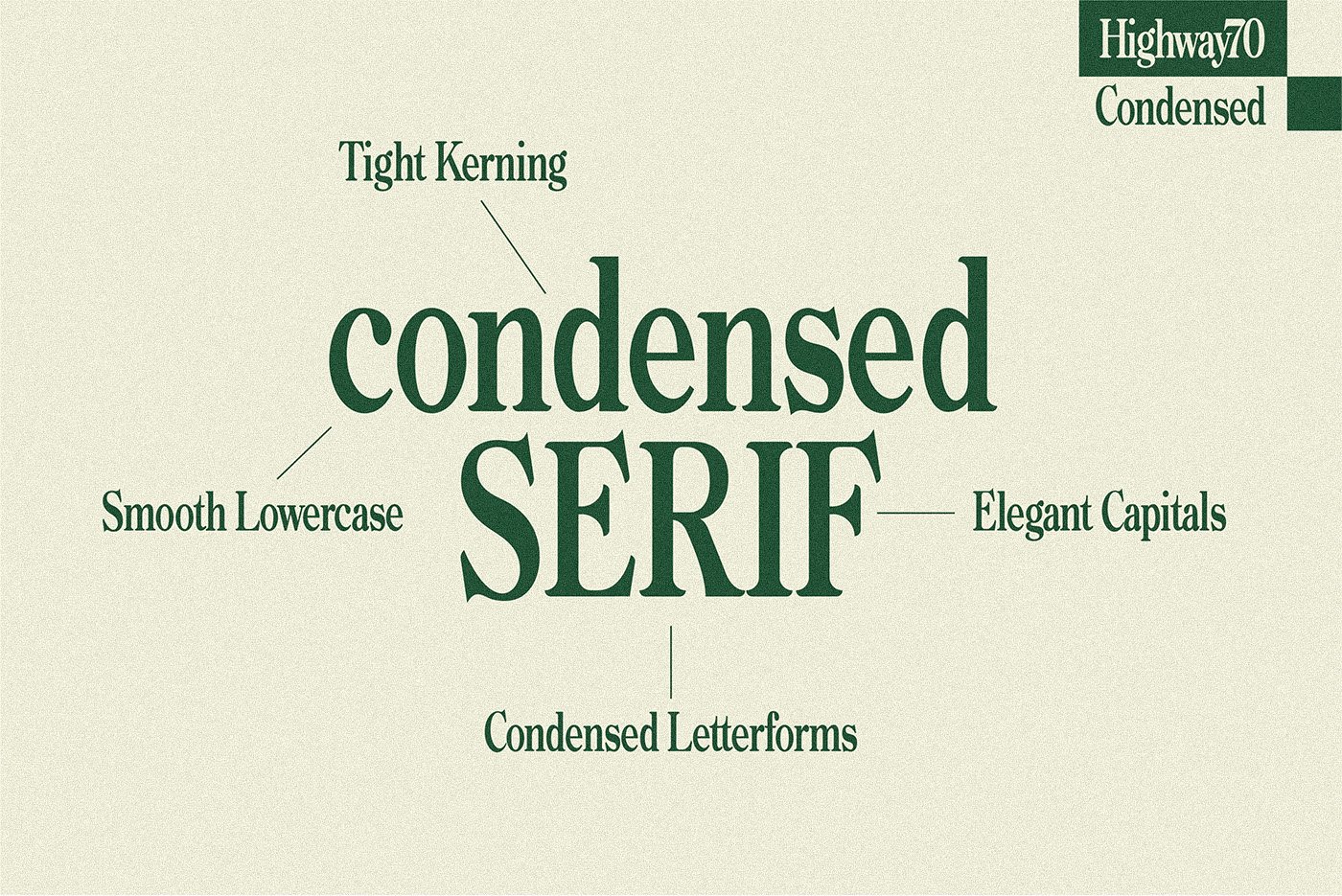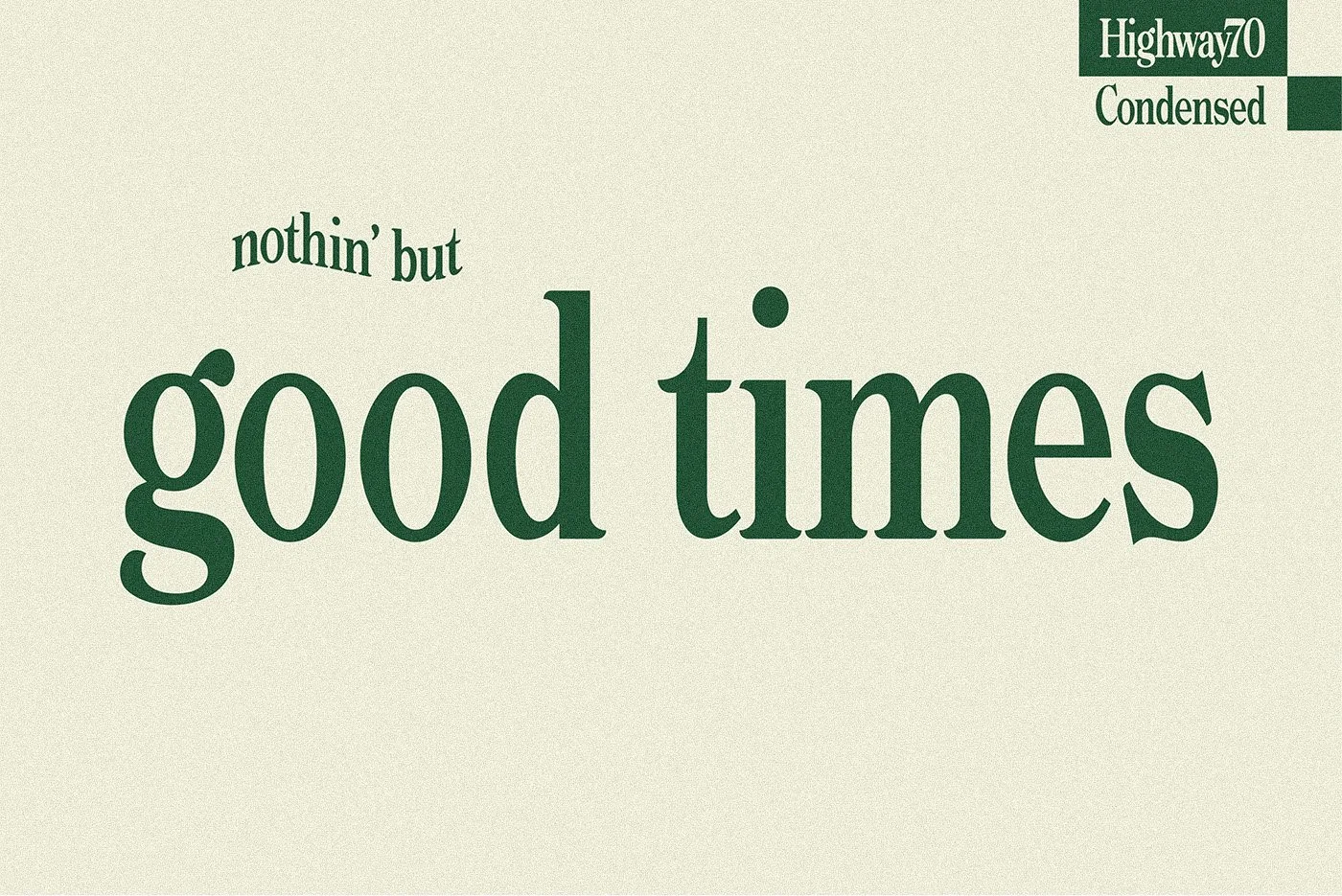
Highway 70 Condensed
Highway 70 Condensed is a tall, elegant display serif that delivers strong headlines with ease. With it’s bold construction and nostalgic appeal, it works very well when typeset in all caps, lowercase, or mixed case. Highway 70 Condensed is a variant of our Highway 70 serif font, and is inspired by mountainside travels along Colorado’s Interstate 70. This font includes uppercase, lowercase, numbers, and punctuation – all pre-kerned for ideal letter spacing.